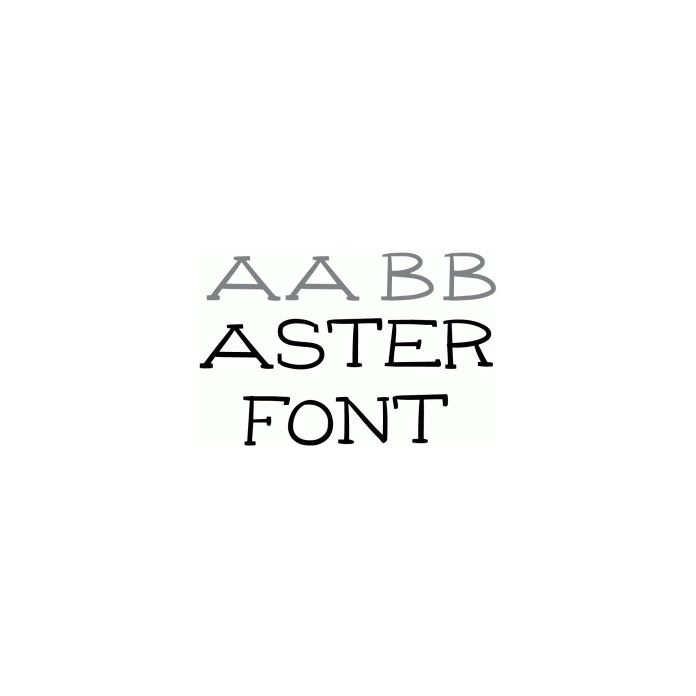
aster font
A whimsical, handwritten, capital letter font. Aster works well in print and cut designs. It also cuts out nicely at larger sizes. For commercial licenses, contact me. www.katiejarman.com/blog